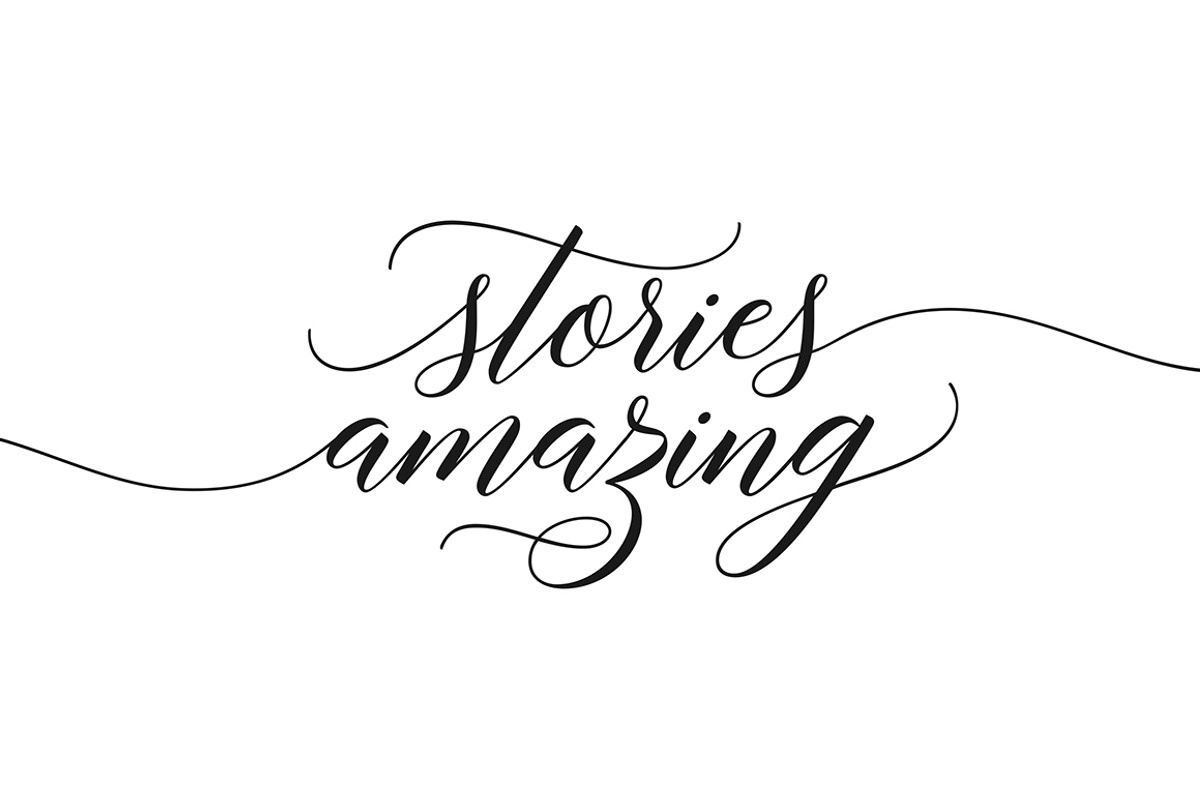
Brunella Script
Brunella is a modern calligraphy design volume including four fonts. a regular script, style script and upright script. This font is casual and graceful. Ideal for wedding invitations, signage, headlines, logos, packaging, product branding, etc.
Brunella Script features 931+ glyphs with 575 alternate characters. including OpenType Stylistic alternates, ligatures and international language support.